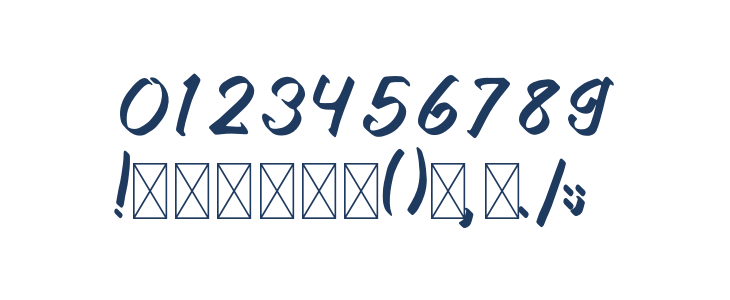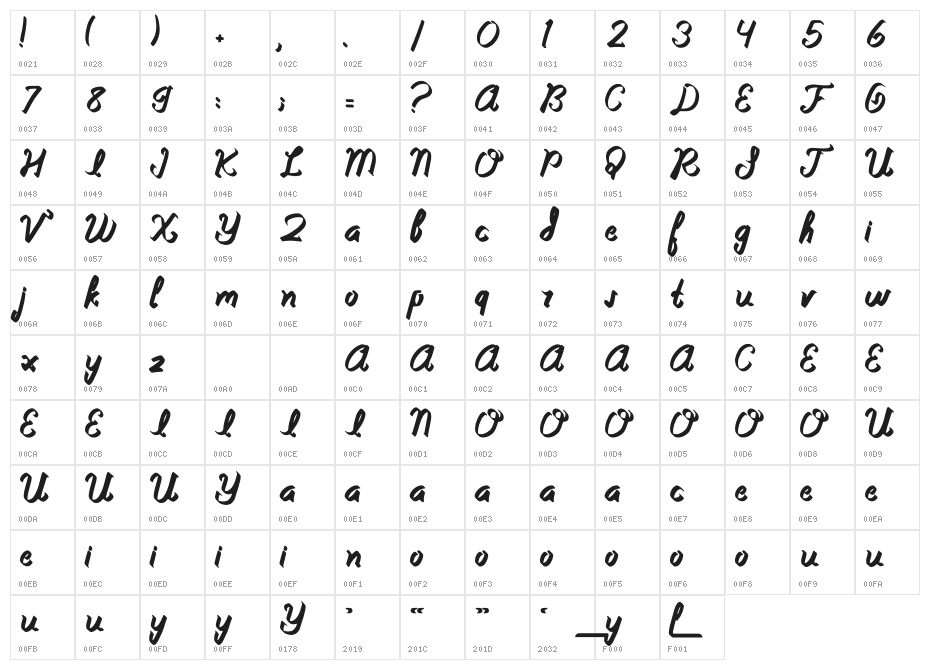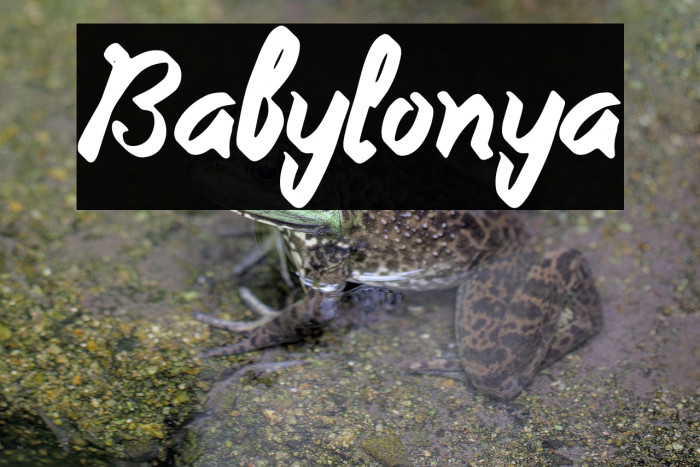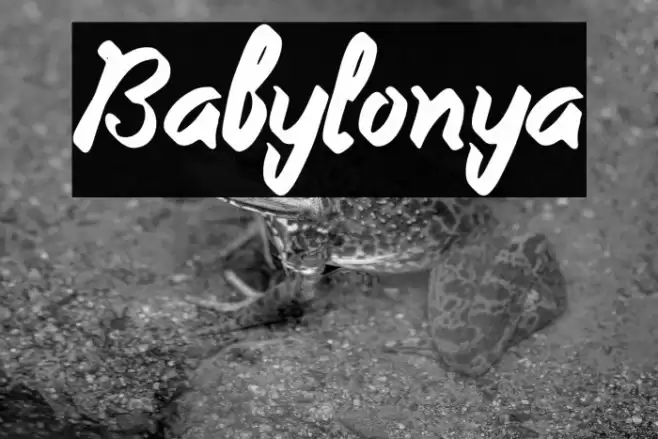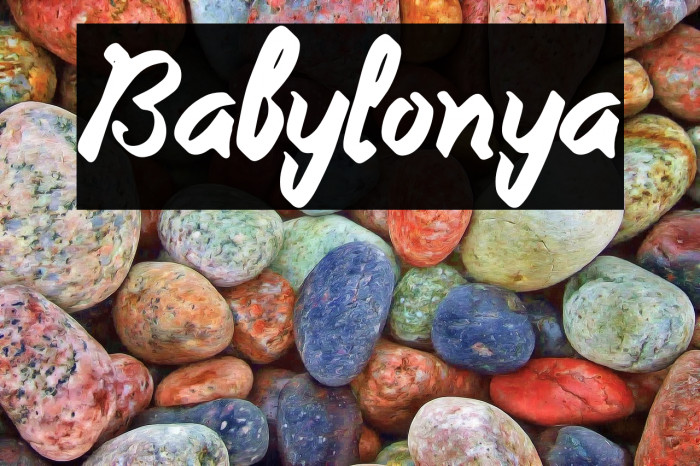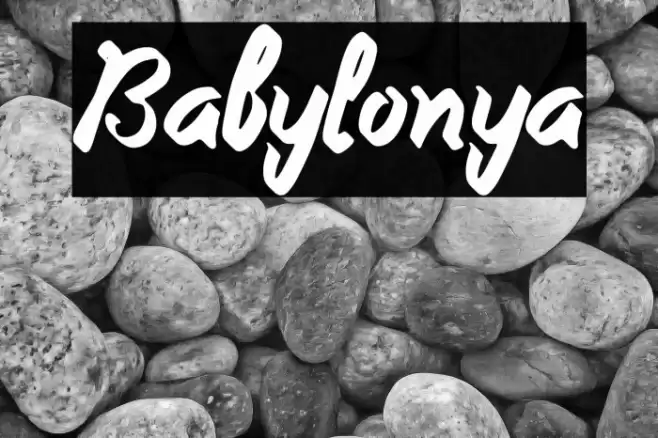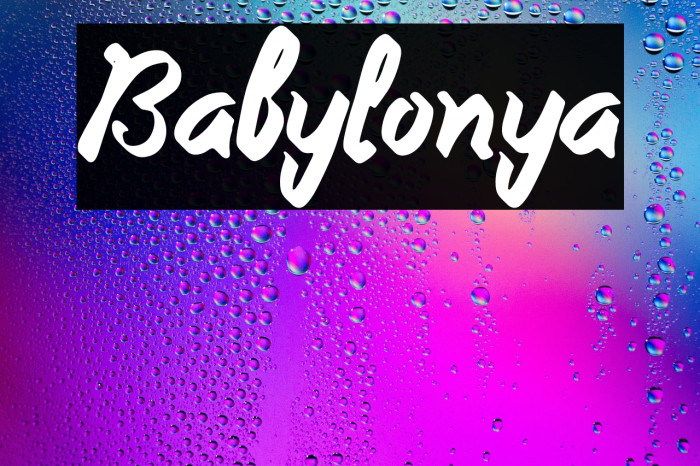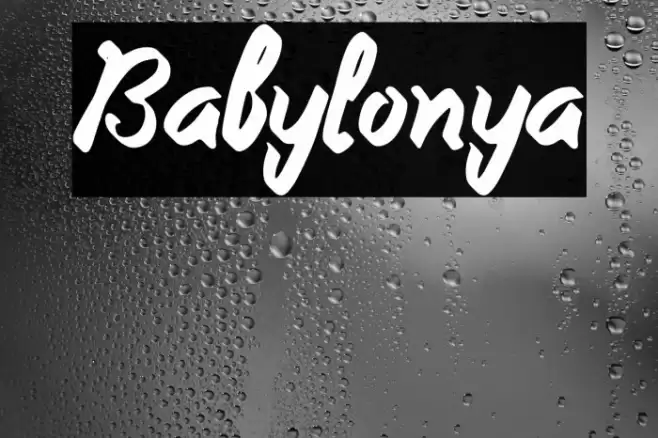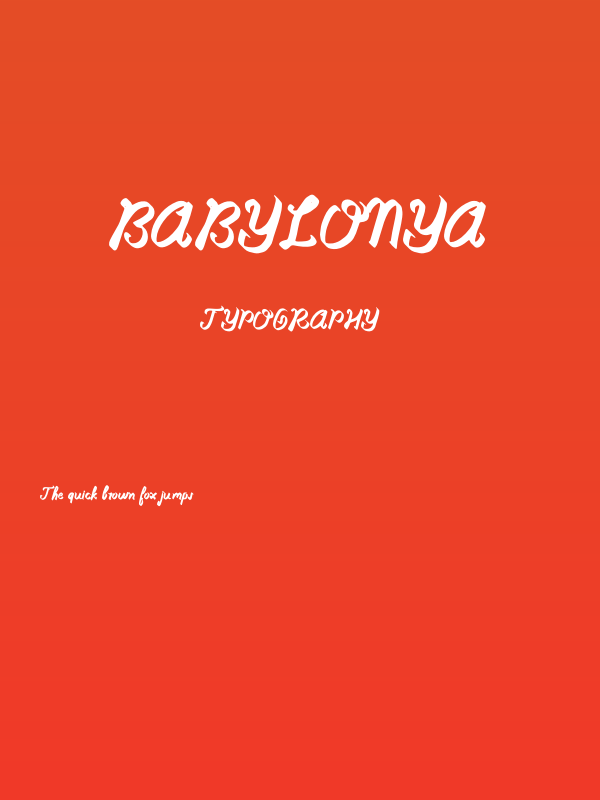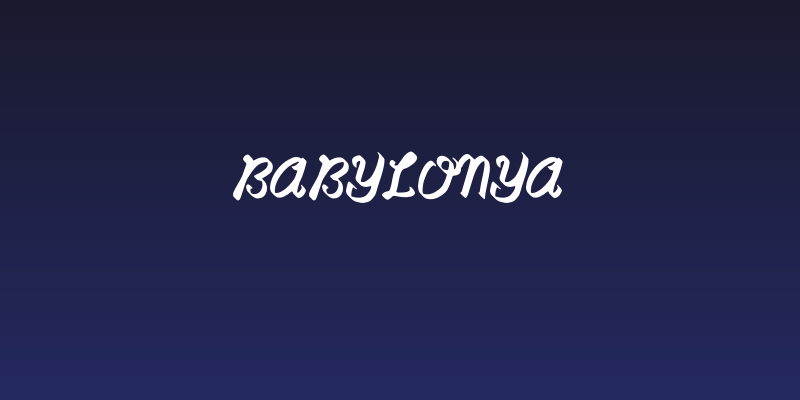
Babylonya Font
Babylonya Description
This font features a bold and expressive script style, characterized by its fluid and dynamic strokes. The uppercase letters exhibit a sense of elegance with their sweeping curves and connected forms, while the lowercase letters maintain a consistent rhythm and flow. The numerals are distinct and maintain the same boldness, ensuring readability. Special characters are designed to complement the overall style, adding a touch of flair. The font's overall appearance is both artistic and modern, making it suitable for creative and decorative applications.